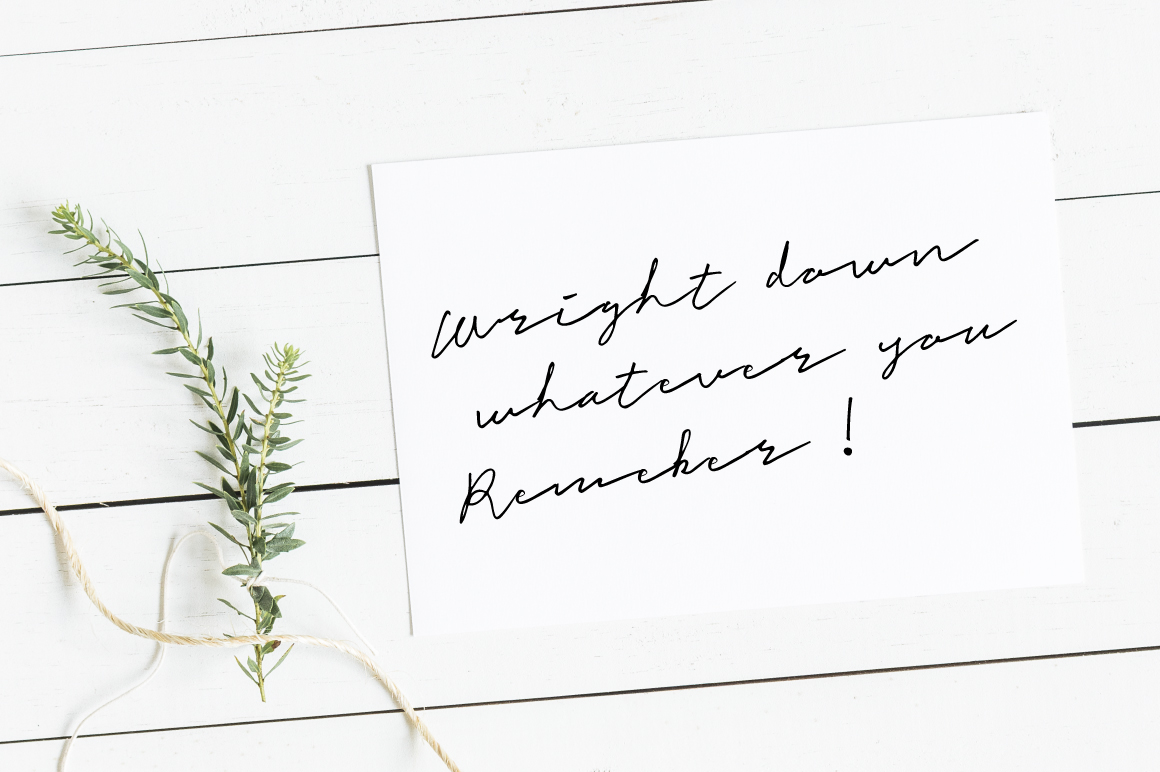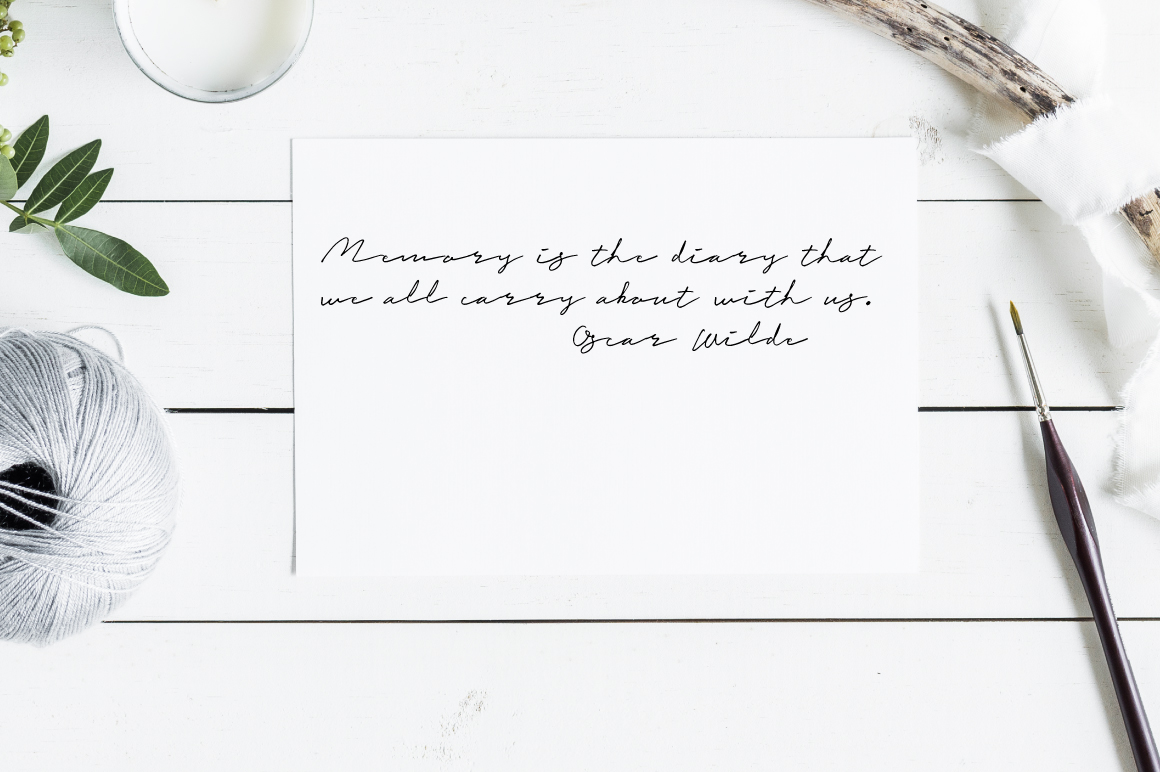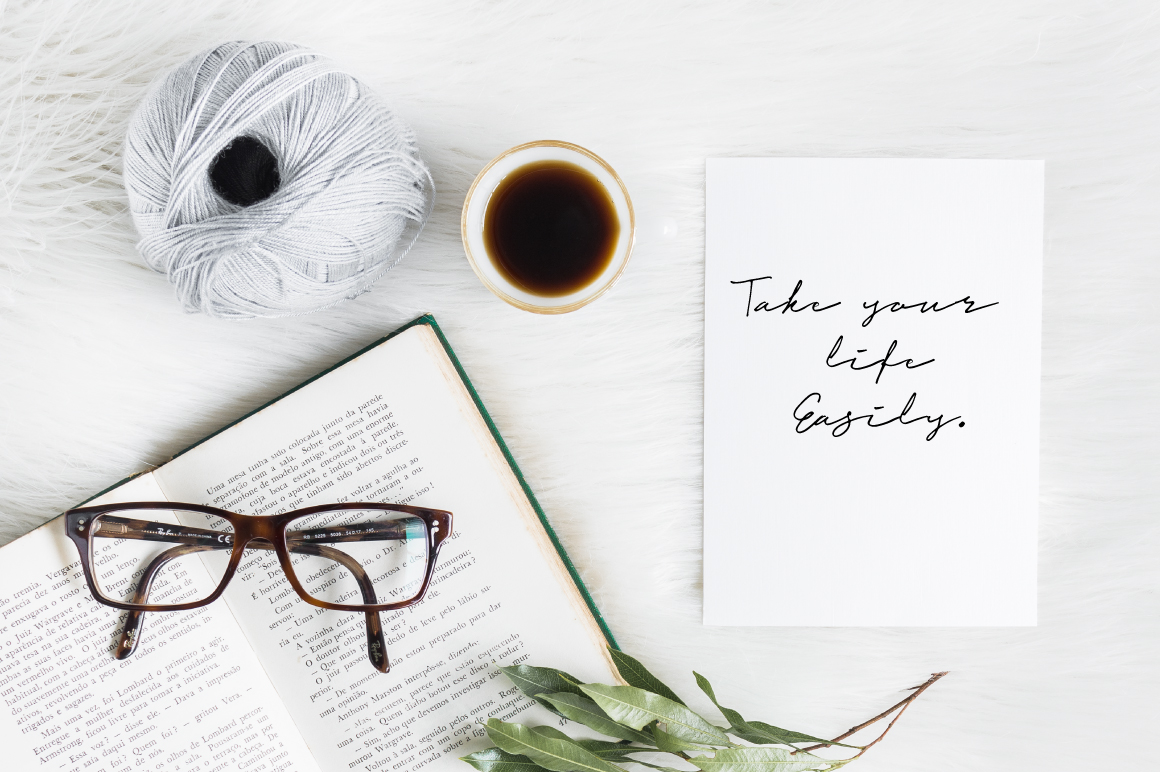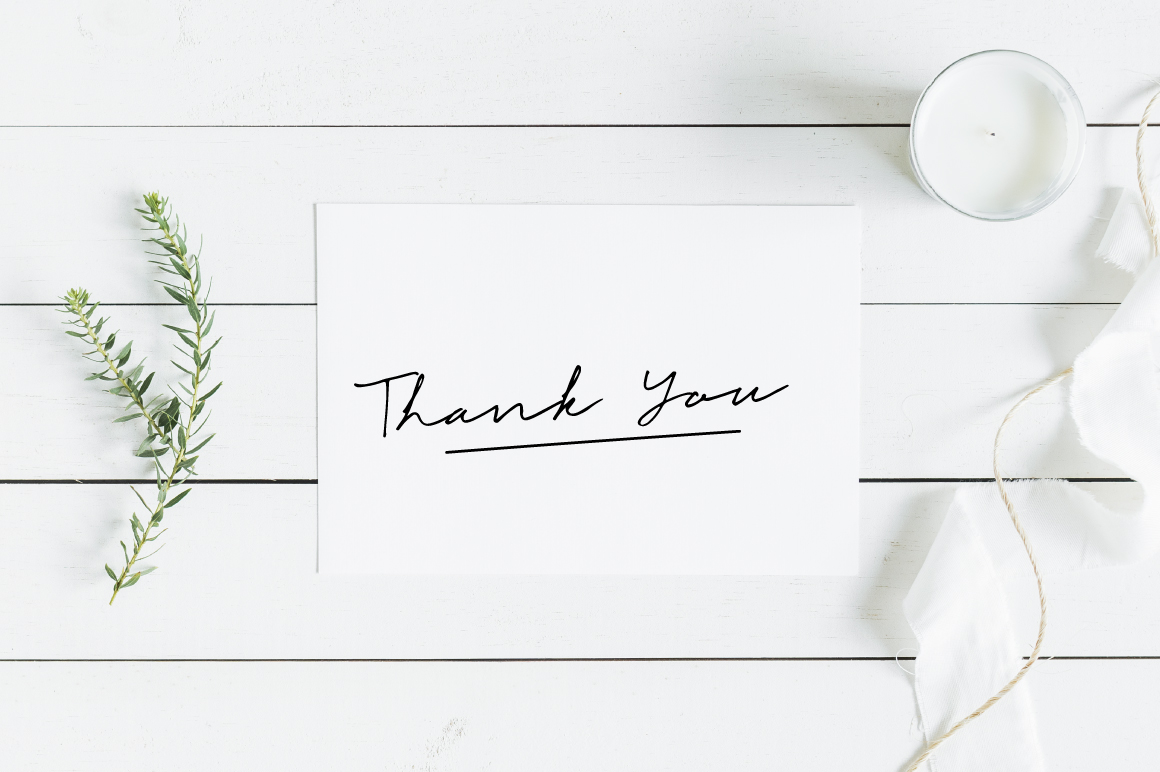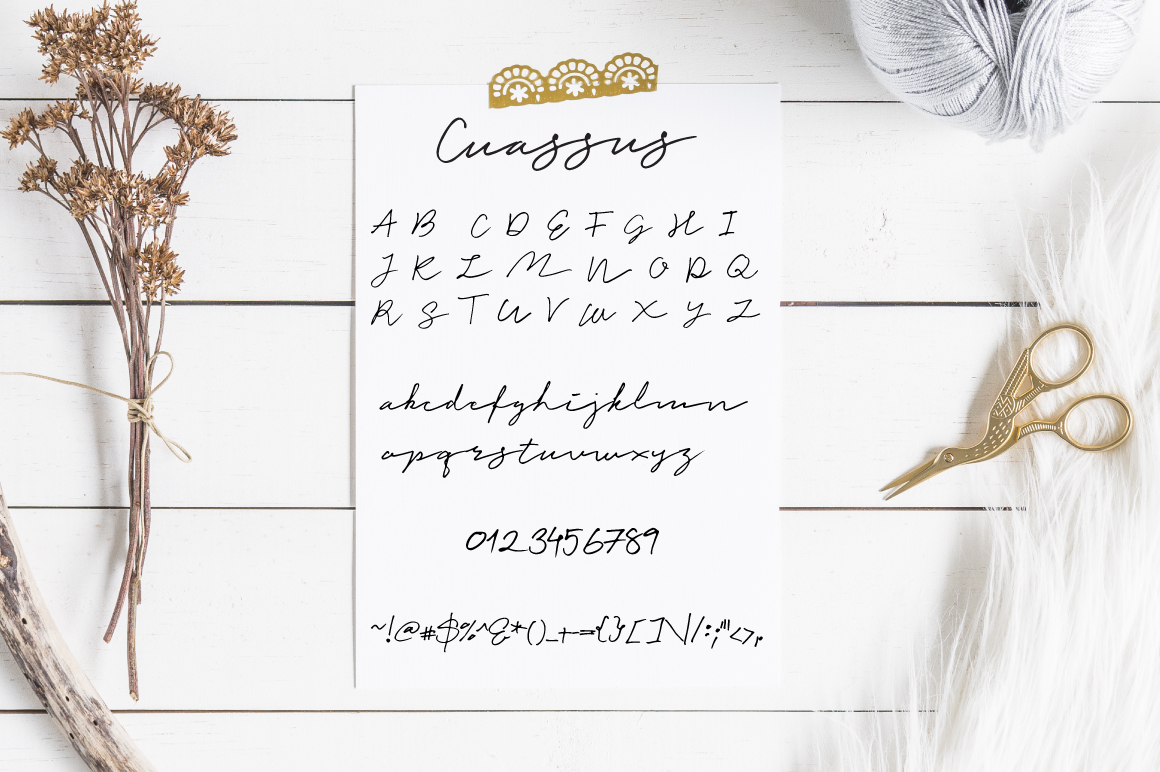
Cuassus Font
About Cuassus Font
Cuassus is a font created to add some personality to your designs. It works great for invites, birthday & Christmas cars and other projects that need a personal touch.